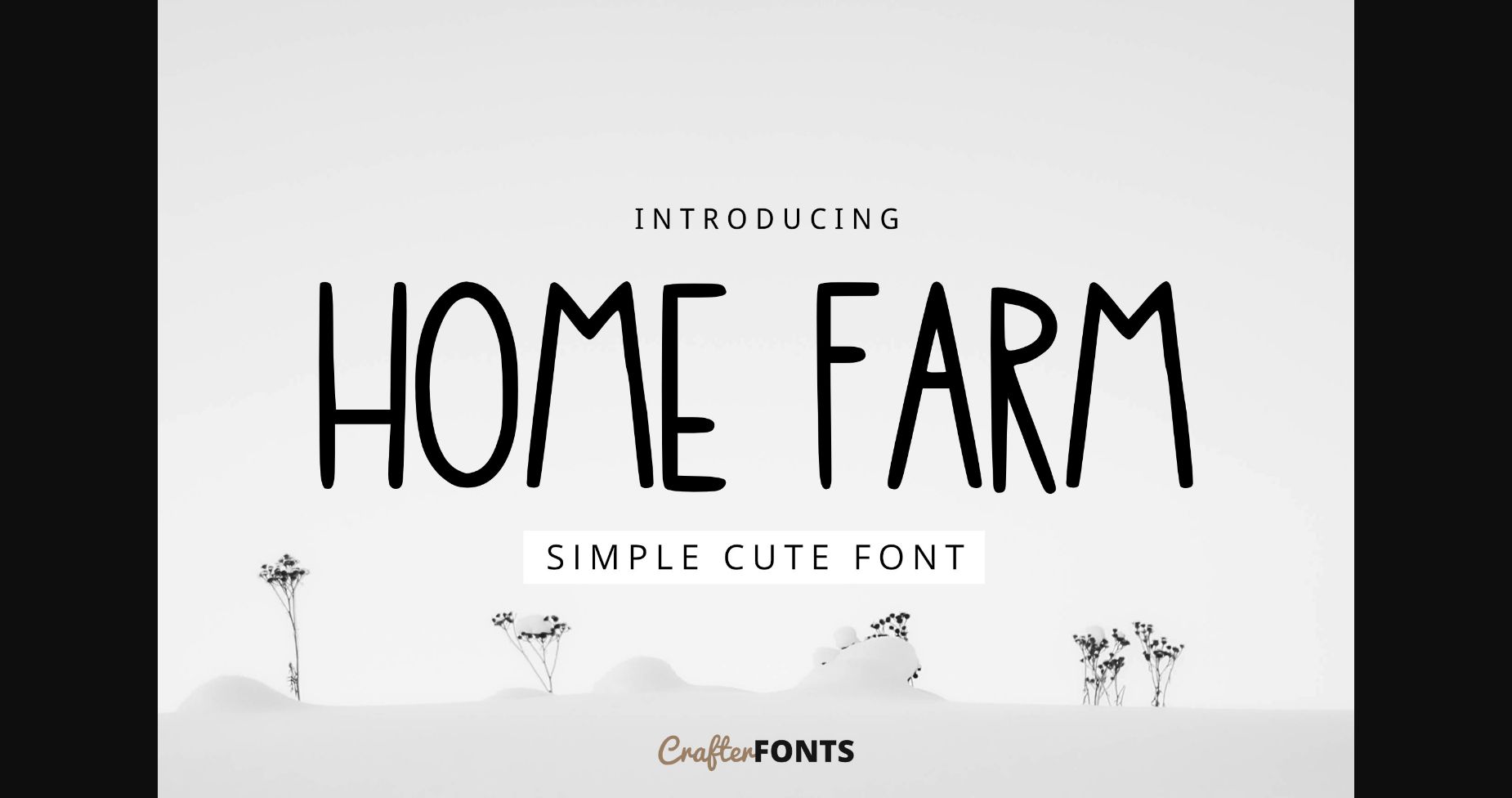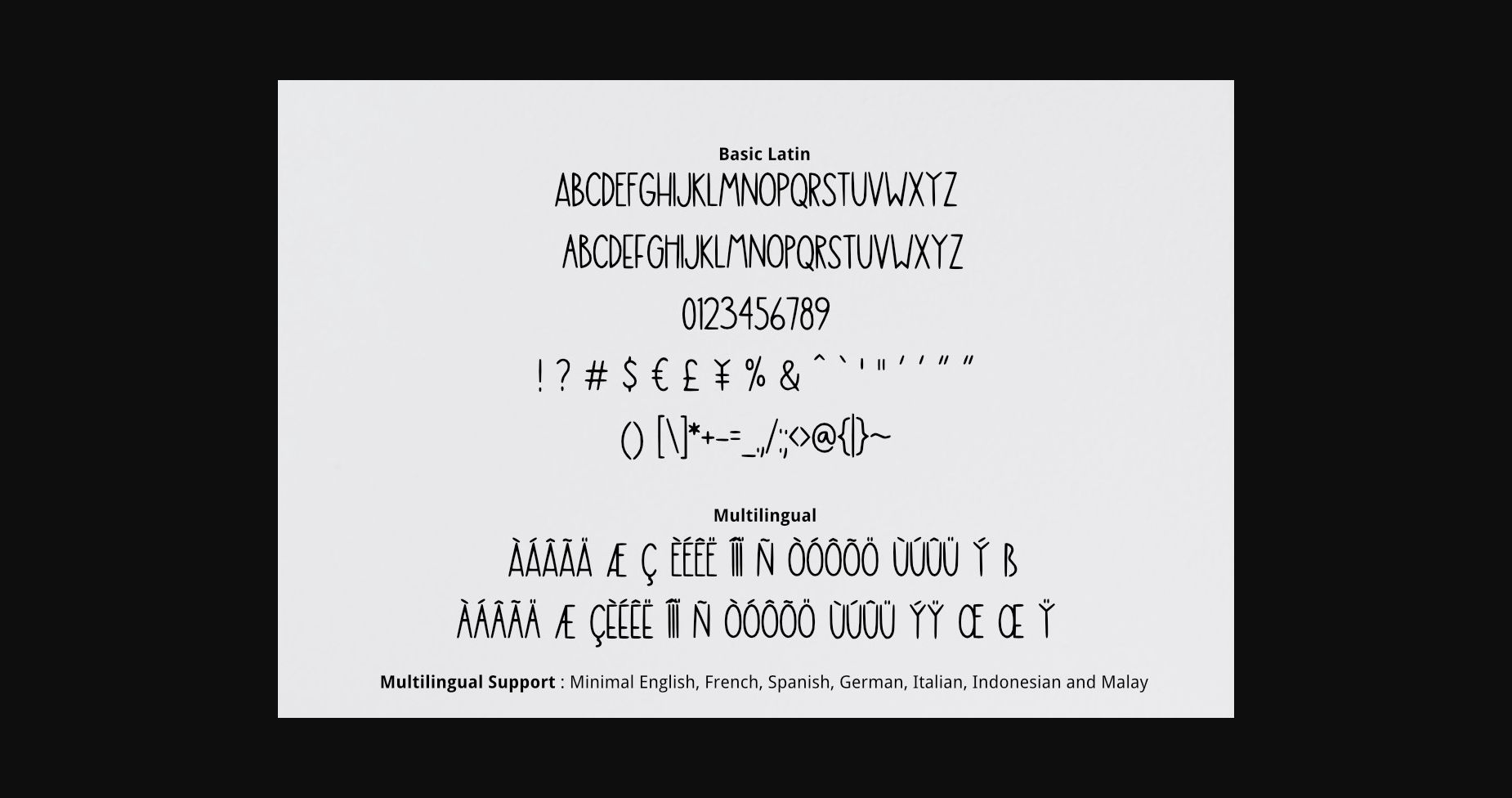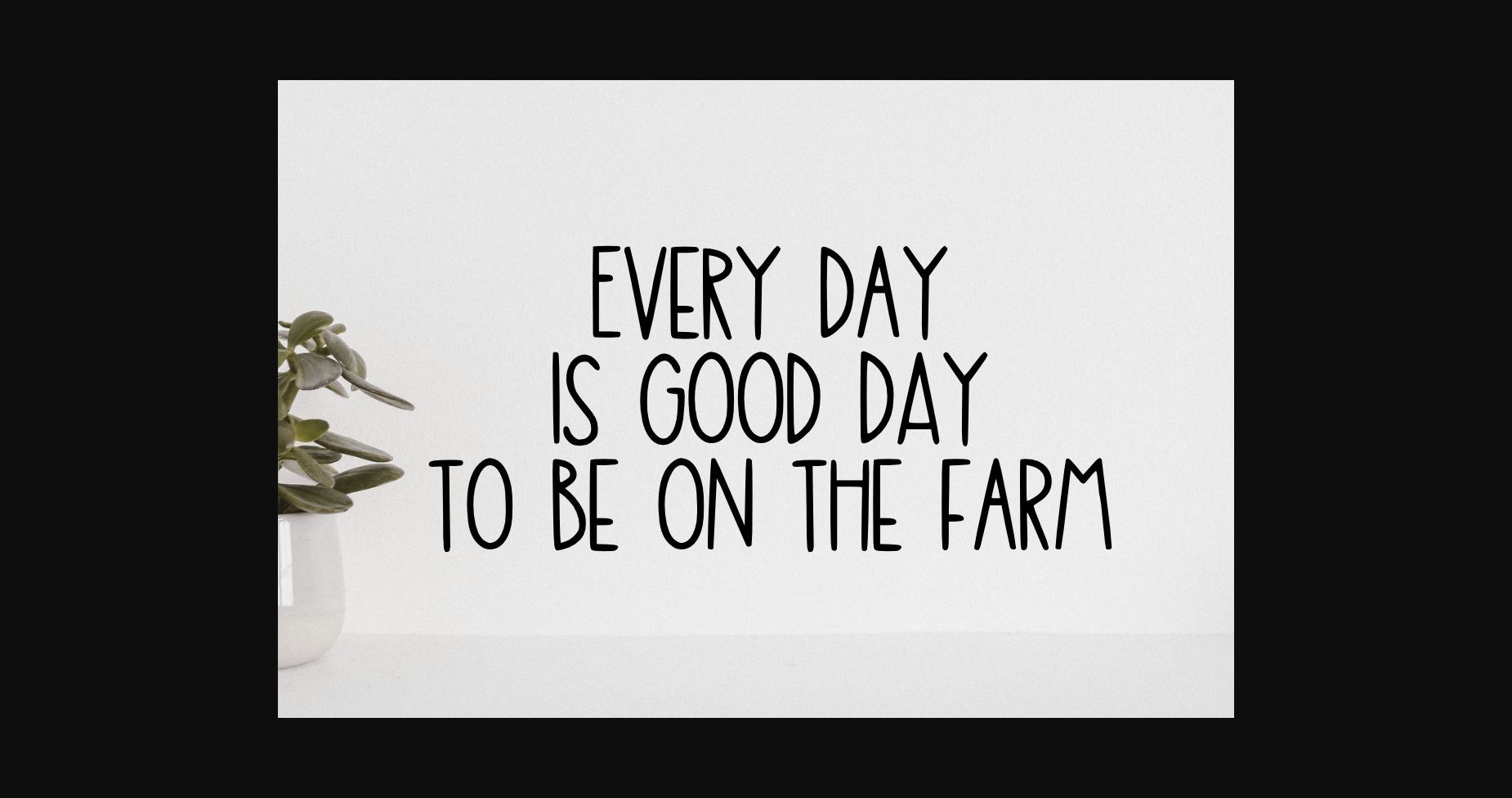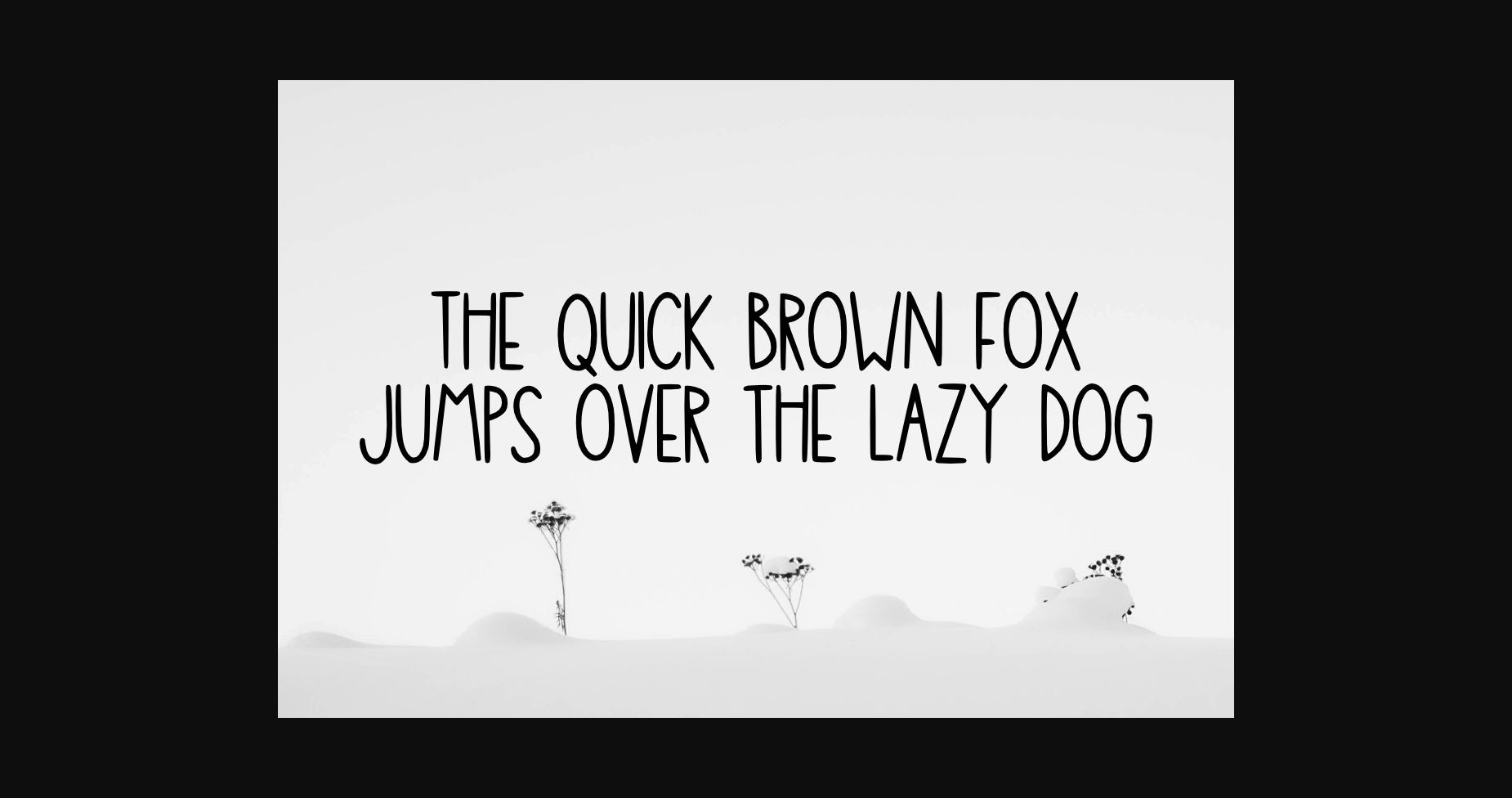
HomeSans Serif FontsHome Farm Font Sans Serif Fonts Home Farm Font FacebookXPinterestWhatsApp 1 of 6 ... Home Farm Font Poster 2... Home Farm Font Poster 3... Home Farm Font Poster 4... Home Farm Font Poster 5... Home Farm Font Poster 6... About Home Farm Font Home Farm is a simple and modern sans serif font suitable for quotes, logos, headings, titles, and many more. Use it on any of your creative projects, and your designs will become outstanding! DOWNLOAD NOW People also explored Mima Font Natalee Font Blooming Valerian Font Vegapung Font Bokretan Font Daft Script Heylova Font Girls Oliver Font The Antter Font 299 0 TagsHome Farm Font Previous articleNovaesium FontNext articleLychee Font LEAVE A REPLY Cancel reply Comment: Please enter your comment! Name:* Please enter your name here Email:* You have entered an incorrect email address! Please enter your email address here Website: Save my name, email, and website in this browser for the next time I comment. Personal Use Free Multicolore Personal Use Free Read more about this font Mail Ray Stuff Personal Use Free Read more about this font Almonte Personal Use Free Read more about this font Little Pixel Personal Use Free Read more about this font BLOG Free Fonts Risk: Why Free Fonts Can Be Dangerous for Designers Free Fonts Risk: Why Free Fonts Can Be Dangerous for Designers Using free fonts is a common practice in web and graphic design. However, the... Exploring Font Trends Best Fonts for YouTube Videos: Make Your Thumbnails Stand Out Top 7 Google Fonts Alternatives for Faster and Privacy-Friendly Web Design (2025)